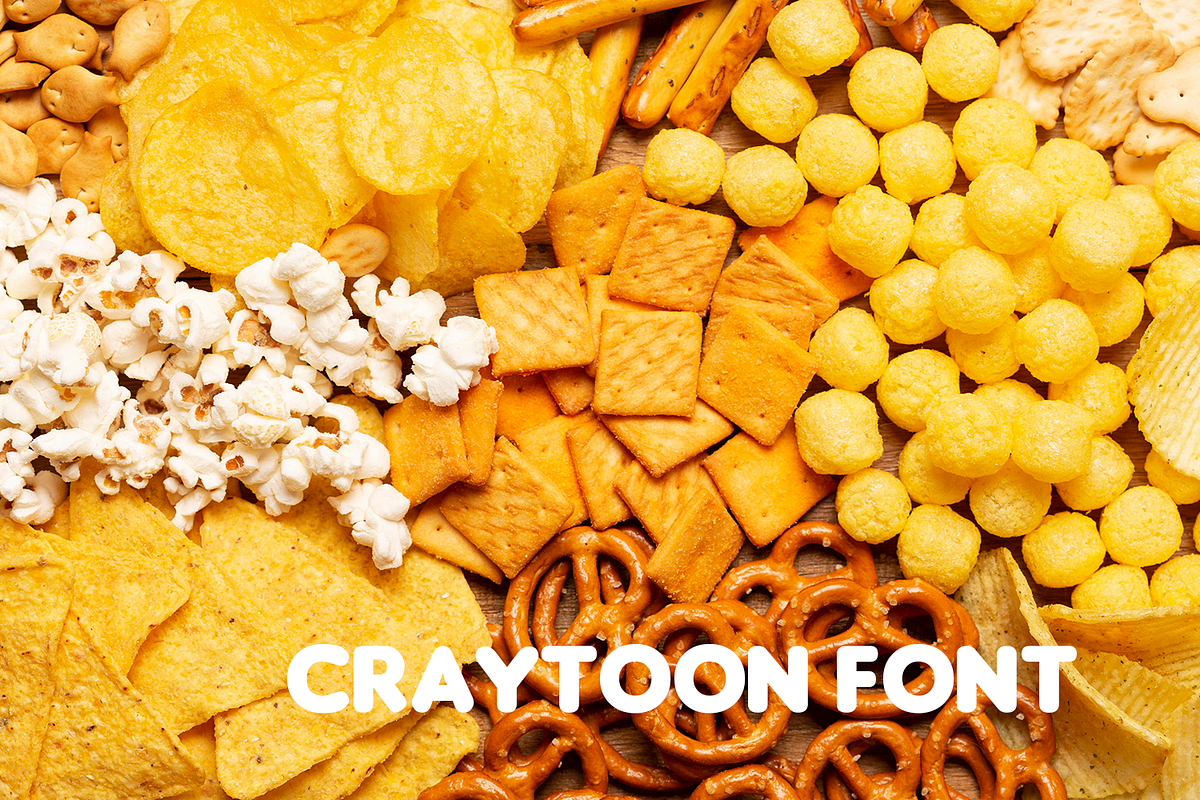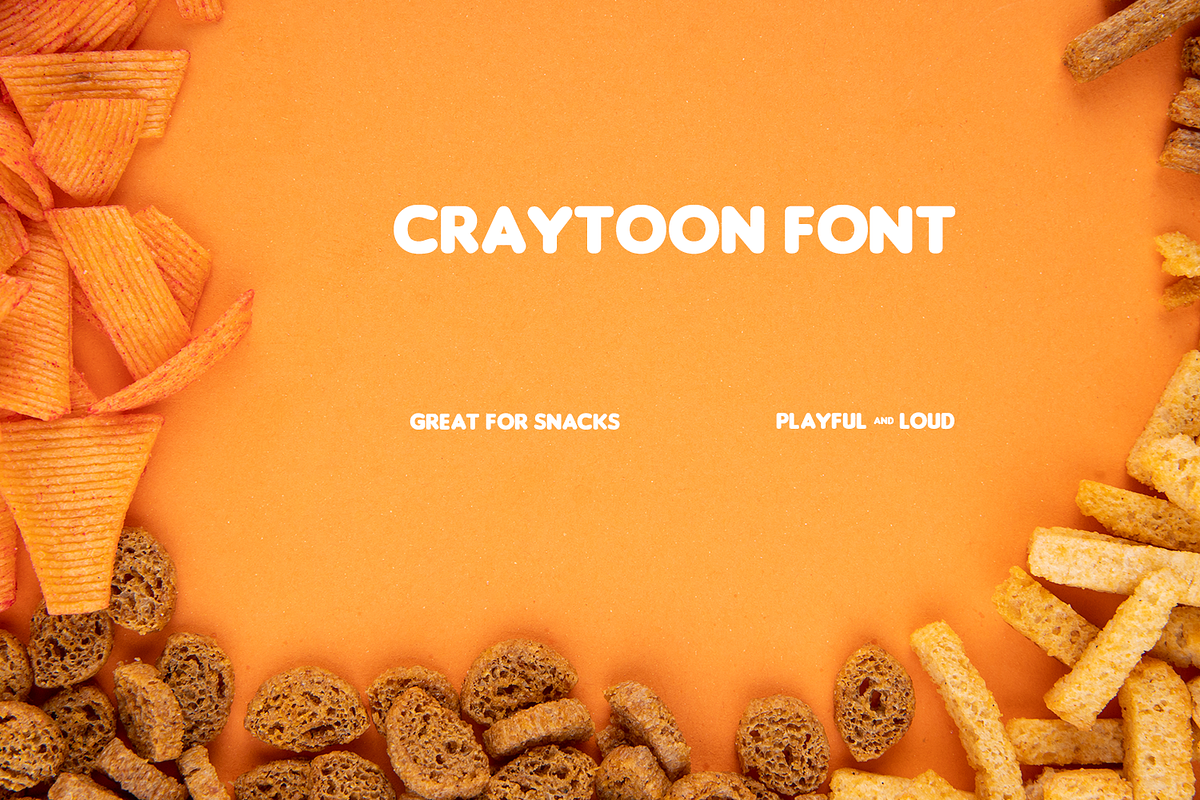
🍔 Introducing Craytoon — Deliciously Bold. Dangerously Fun.
Get ready for a font that doesn’t just talk — it shouts, giggles, and chomps its way into your design. Craytoon is the ultimate pick for comics, cartoons, packaging, and all things wacky.
💥 Hand-drawn comic flair 🍟 Great for snacks, kids, and entertainment 🎉 Bursting with energy and humor Whether you're designing for a kid’s cereal, an animated video, or a punchy social media graphic, Craytoon makes your message impossible to ignore.
🎨 Craytoon — Your words, with extra cheese and a side of fun.